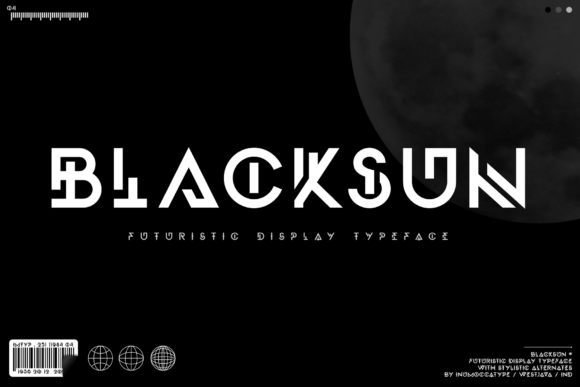
Unlock the Power of the Future with the Blacksun Font
Have you ever been in the middle of a creative project, pouring your heart and soul into a design, and suddenly, the perfect font pops into your mind? That’s exactly what happened to many designers when they discovered the Blacksun Font. This futuristic display font is more than just a pretty face – it’s a powerful tool that can elevate your designs to new heights.
With its simple, strong, and eye-catching characters, the Blacksun Font is perfect for modern technology, synth-wave, and Sci-fi movie posters, as well as science and space-themed projects. Whether you’re working on a website interface, magazine, or poster, this font is sure to make your project stand out. As a designer, you know how valuable a versatile and high-quality font can be – and the Blacksun Font is definitely worth adding to your toolkit.
Key Features of Blacksun Font
- Unique Characteristics: The Blacksun Font features a unique blend of modern and minimalist design elements, with clean lines, geometric shapes, and a subtle texture that gives it a premium feel.
- Font Weight and Style: The Blacksun Font is available in regular, bold, italic, and bold-italic weights, providing flexibility for use in various design applications.
- Font Metrics and Kerning: The font has been carefully crafted to ensure optimal font metrics and kerning, resulting in a smooth and professional appearance in both print and digital media.
Designer Review: Blacksun Font
Overall, I think Blacksun Font is a solid choice for designers looking for a futuristic and sleek aesthetic. ✨ The font’s geometric shapes and clean lines make it perfect for titles, headings, and other display typography. It’s also quite versatile and works well in digital and print materials.
One of the things I like about Blacksun Font is its consistency across different weights and styles. ✨ The font’s designer has done a great job of maintaining the same level of quality and coherence throughout the various weights, from the lightest to the boldest.
However, there are some limitations to consider. ⚠️ For one, Blacksun Font can come across as a bit cold and unapproachable, which may not be suitable for designs that require a more friendly or approachable tone. Additionally, the font’s geometric style may not be the best choice for body text, as it can be tiring to read in large quantities.
Overall, I would recommend Blacksun Font to designers who are looking for a bold, futuristic aesthetic for their titles and headings. Just be mindful of the potential limitations and use it sparingly in body text.
Key Strengths:
- Geometric shapes and clean lines
- Consistent quality across weights and styles
- Perfect for titles, headings, and display typography
- Works well in digital and print materials
Key Limitations:
- Can come across as cold and unapproachable
- May not be suitable for body text
Tips for Getting the Most Out of Blacksun Font
Use Blacksun Font to add a touch of sophistication and elegance to your designs.
Pair it with a clean and simple background to make the font stand out.
Use Blacksun Font for:
Business cards and resumes
Editorial and publishing designs
Any design that requires a touch of sophistication and elegance